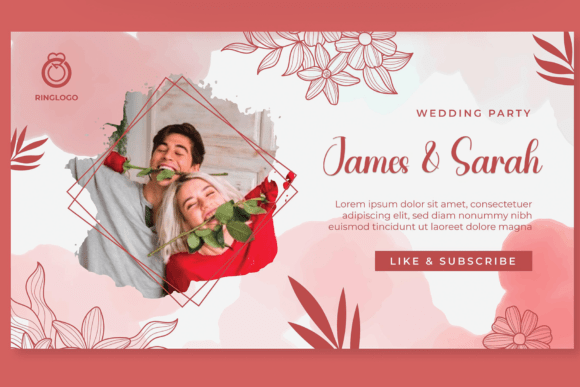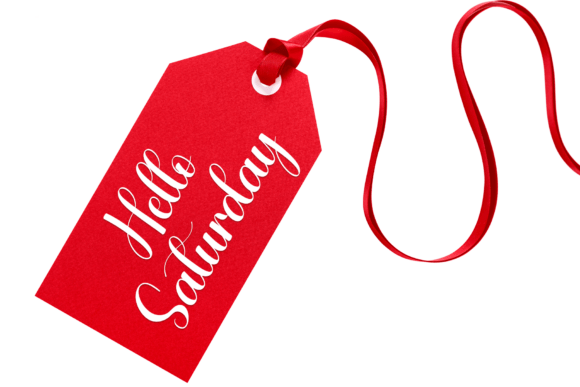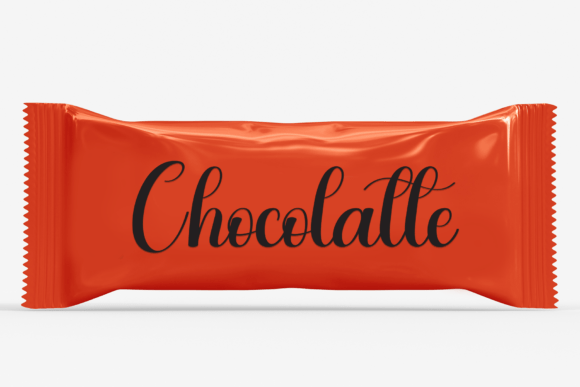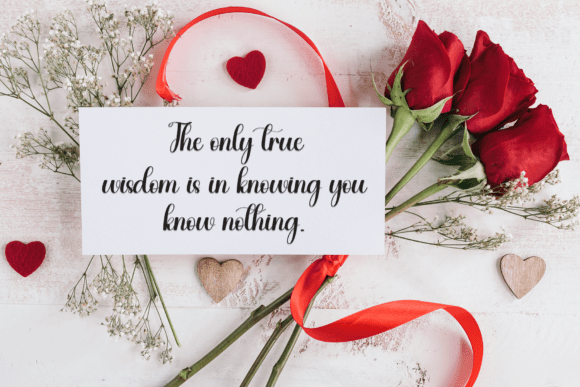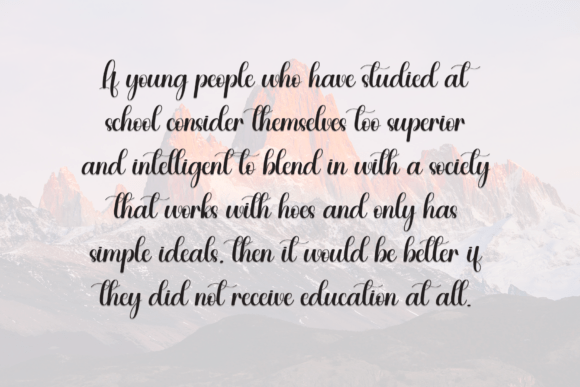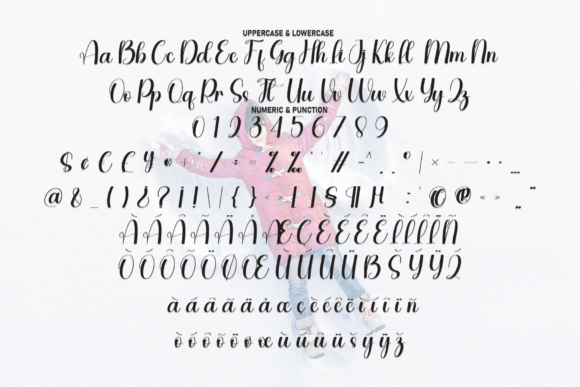
Introducing Angelsnow Font: Elevate Your Designs with Artistic Flair and Contemporary Elegance
In the world of typography, few fonts manage to capture the perfect blend of artistic expression and modern sophistication. Angelsnow Font is one such exceptional typeface that brings a stylish script to the forefront, designed to infuse your designs with a creative and elegant touch. Whether you’re a designer looking for the perfect font for your next project or a crafter seeking to add a personal touch to your creations, Angelsnow Font is sure to impress.
The Essence of Angelsnow Font
Angelsnow Font is a stylish script font that exudes artistic flair and contemporary elegance. Its design is characterized by fluid brush strokes, dynamic curves, and expressive letterforms, which together capture the essence of hand-painted calligraphy with a modern twist. This font is not just a collection of letters; it’s an artistic statement that brings a unique personality to any design.
Key Features of Angelsnow Font
- Fluid Brush Strokes: The font features smooth, fluid brush strokes that give it a natural, hand-painted look. This characteristic makes Angelsnow Font perfect for designs that require a personal and artistic touch.
- Dynamic Curves: The dynamic curves in Angelsnow Font add to its elegance and sophistication. These curves provide a sense of movement and fluidity, making the font highly versatile for various design applications.
- Expressive Letterforms: Each letterform in Angelsnow Font is designed to be expressive and unique, contributing to the font’s overall charm and character. The letterforms are not just letters; they are artistic elements that can enhance any design.
- Modern Twist: While Angelsnow Font draws inspiration from traditional hand-painted calligraphy, it also incorporates a modern twist. This blend of old and new makes the font highly adaptable to contemporary design trends.
Angelsnow Font is incredibly versatile and can be used in a wide range of design projects. Its stylish and elegant appearance makes it ideal for:
- Logos: Create a memorable and sophisticated logo for your brand with Angelsnow Font. Its unique and artistic design ensures that your logo stands out from the competition.
- Invitations: Add a touch of elegance to your invitations, whether it’s for a wedding, birthday, or any other special occasion. Angelsnow Font’s expressive letterforms and fluid strokes make it perfect for creating beautiful and eye-catching invitations.
- Packaging: Elevate your product packaging with Angelsnow Font. Its modern and artistic design can help your product stand out on store shelves and make a lasting impression on customers.
- Social Media Graphics: Create stunning social media graphics with Angelsnow Font. Whether it’s a promotional post, an announcement, or a simple graphic, this font adds a creative and sophisticated touch that engages audiences.
Why Choose Angelsnow Font?
Choosing Angelsnow Font for your design projects offers numerous benefits. Here are a few reasons why designers and crafters prefer this stylish script font:
- Visual Impact: Angelsnow Font delivers a significant visual impact with its unique and artistic design. It captures attention and adds a distinctive touch to any design.
- Versatility: The font’s versatility makes it suitable for a wide range of design applications. Whether you’re working on a logo, invitation, packaging, or social media graphic, Angelsnow Font adapts seamlessly.
- Elegance and Sophistication: Angelsnow Font brings an unparalleled level of elegance and sophistication to designs. Its stylish appearance elevates any project, making it perfect for designers and crafters who aim to create high-quality visuals.
Angelsnow Font is a stylish script font that offers a perfect blend of artistic flair and contemporary elegance. With its fluid brush strokes, dynamic curves, and expressive letterforms, it captures the essence of hand-painted calligraphy with a modern twist. Ideal for logos, invitations, packaging, and social media graphics, Angelsnow Font adds a creative and sophisticated touch to any design. Its natural flow and vibrant character make it a versatile and impactful choice for designers and crafters looking to elevate their projects. Discover the beauty and versatility of Angelsnow Font and take your designs to the next level.